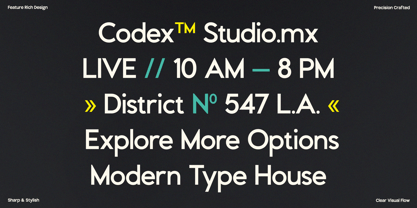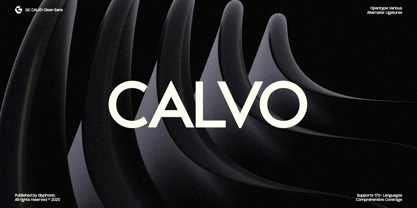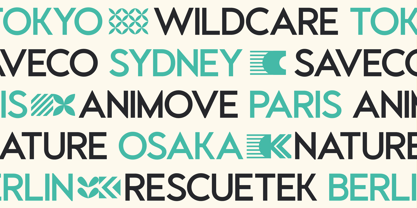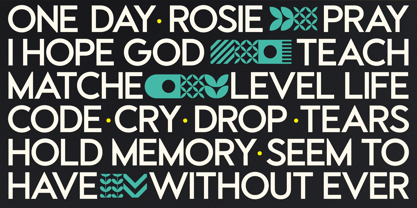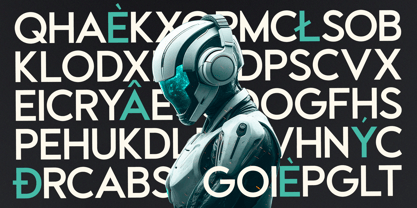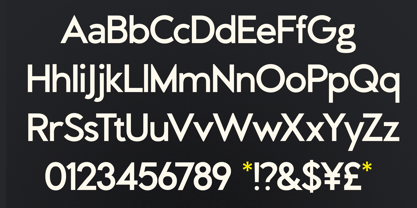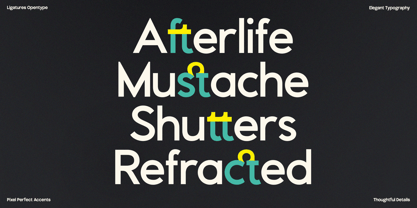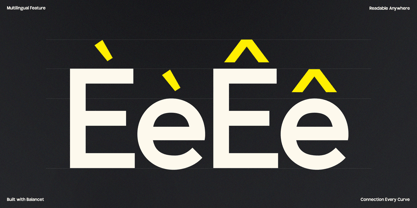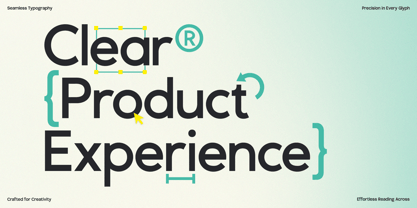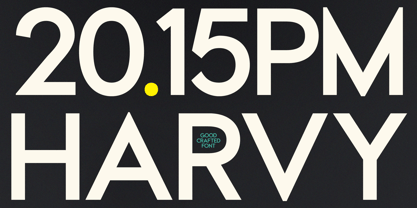
GC Calvo
by Onyx Studio
The GC Calvo Font Family was designed by Muhammad Hafiizh Solana and published by Onyx Studio. GC Calvo contains 2 styles and family package options. More about this family
GC Calvo is a neo-grotesque sans-serif typeface that blends geometric precision with modern clarity. Crafted for designers who value balance and minimalism, it’s perfectly suited for headlines, branding, logos, digital interfaces, packaging, and editorial layouts. Its clean construction and confident tone make it a go-to choice for high-impact visual communication. With its uniform stroke widths, sharp terminals, and subtly softened curves, GC Calvo delivers a crisp, professional aesthetic while maintaining warmth and approachability. Whether you're working on tech brands, futuristic posters, or minimalist web design, this typeface offers unmatched flexibility and clean style. Features: Uppercase & Lowercase Ligatures & Stylistic Alternates Numbers & Punctuation Multilingual Support (170+ Languages) Make your design bold, refined, and timeless with GC Calvo.
Designers: Muhammad Hafiizh Solana
Foundry: Onyx Studio